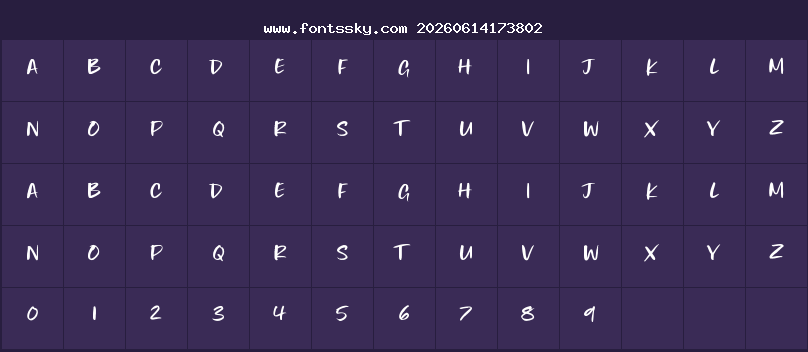
• Font Name: Ivory Heart Solid
• Full Font Name: Ivory Heart Solid
• PostScript Name: IvoryHeartSolid
• Designer: Set Sail Studios Ltd
• Manufacturer: Set Sail Studios Ltd
About Ivory Heart Solid.ttf
Ivory Heart Solid.ttf is a modern, elegant sans-serif font designed for ultimate readability and visual harmony. Perfect for branding, headlines, web design, and print materials.